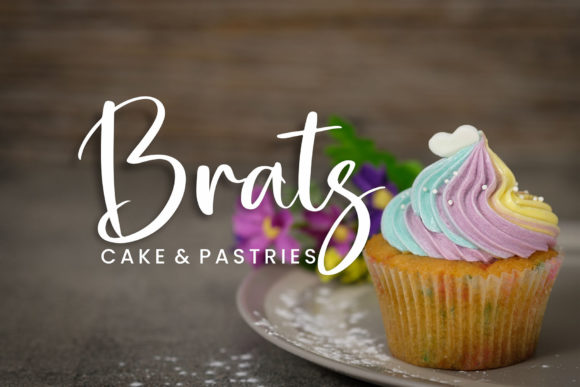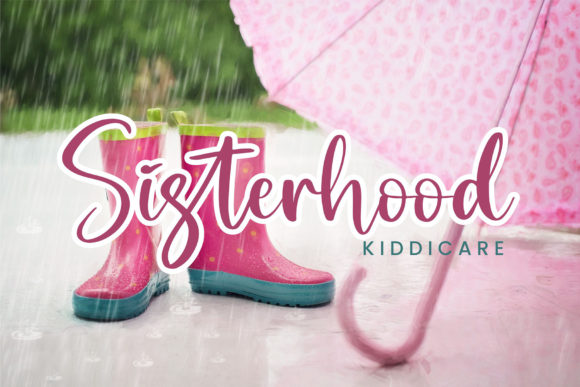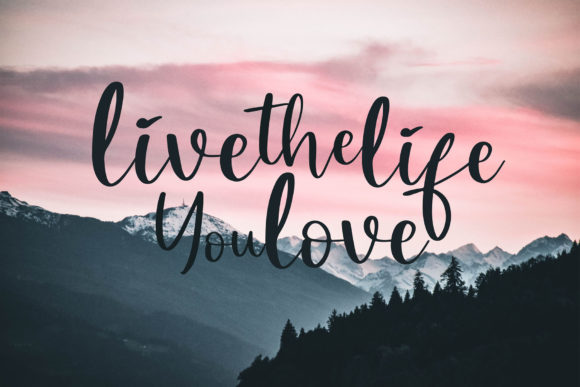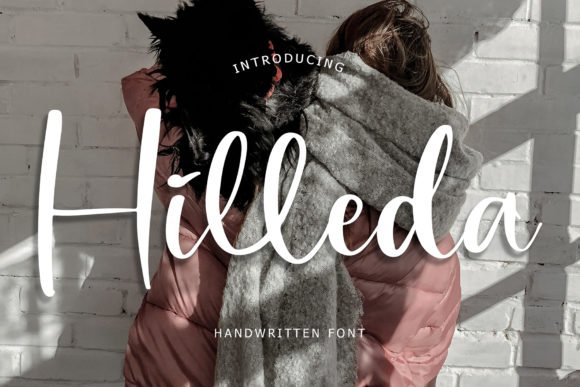
Introduction to Hilleda Font
Hilleda is a beautiful and flowing handwritten font.
Not too thin and not too thick, balanced and varied, this font was designed to enhance the beauty of your projects .
Hilleda Font offers exceptional quality and versatility, making it a valuable addition to your design toolkit. Whether you’re creating for personal projects or commercial use, Hilleda Font delivers professional results.